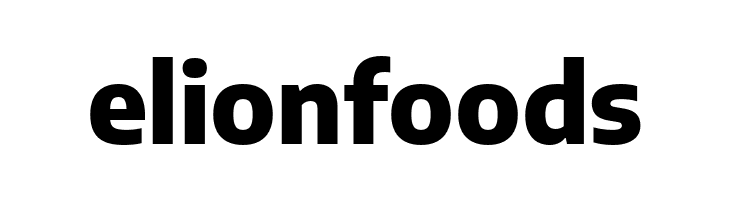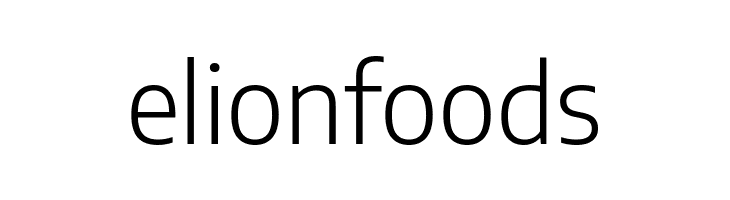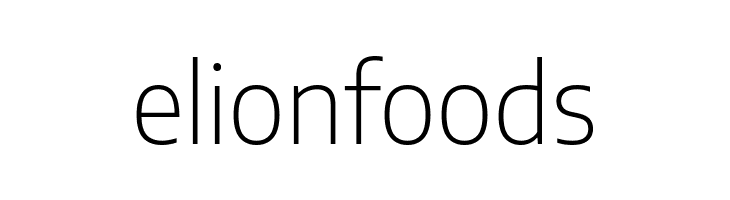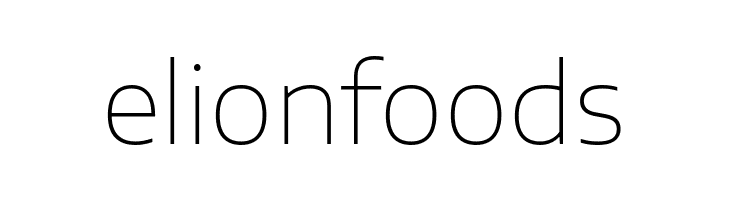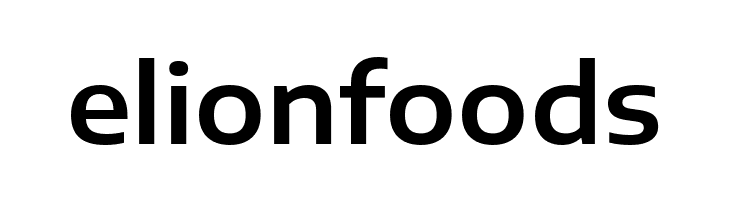
• Encode Sans Expanded ExtraLight
A modern, expanded sans-serif font with an extra light weight and clean lines.
• Encode Sans Expanded Light
A modern, expanded sans-serif font with a light weight and clean design.
• Encode Sans Expanded Medium
A modern, expanded sans-serif font with a clean and balanced design.
• Encode Sans Expanded Regular
A modern, expanded sans-serif font with clean lines and excellent readability.
• Encode Sans Expanded SemiBold
A modern, expanded sans-serif font with semi-bold weight and uniform stroke width.
• Encode Sans Expanded Thin
A modern, expanded sans-serif font with thin strokes and geometric precision.
• Encode Sans ExtraBold
A bold, modern typeface with clean lines and strong visual impact.
• Encode Sans ExtraLight
A modern, extra light sans-serif font with clean lines and minimalistic design.
• Encode Sans Light
A clean, modern sans-serif font with a light weight and minimalistic design.
• Encode Sans Medium
A modern, geometric sans-serif font with excellent readability and versatility.